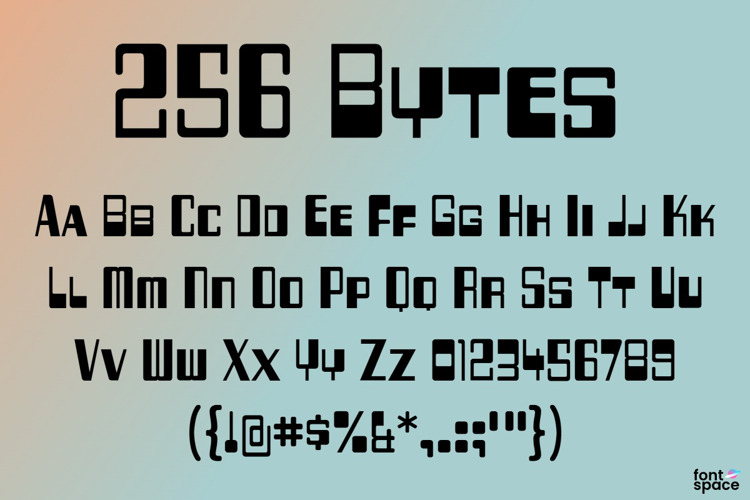
Two Fifty Six Bytes Font
Download Two Fifty Six Bytes, a retro 8-bit pixel font by Ray Larabie. Perfect for chiptune projects, vintage gaming UIs, arcade-style posters, crypto/NFT graphics, and lo-fi digital designs. Clean, monospaced bitmap aesthetic with authentic 1980s computer vibes